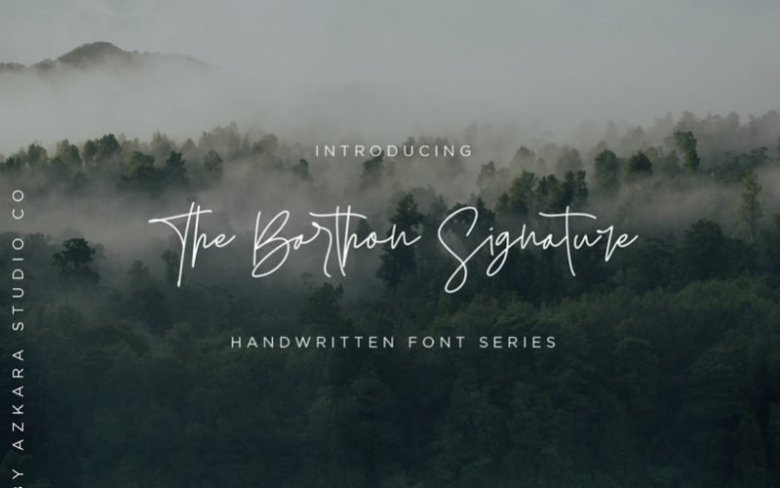
The Barthon Handwritten Font
The Barthon Handwritten Font Version font is a handwritten signature script with a natural & stylish flow.
The Barthon Signature font of scripts is perfect for personal branding. The Barthon Signature is perfect for branding projects, logo, wedding designs, social media posts, advertisements, product packaging, product
designs, label, photography, watermark, invitation, and stationery.